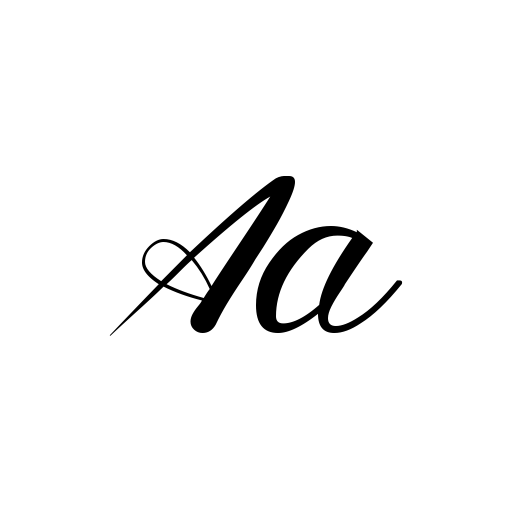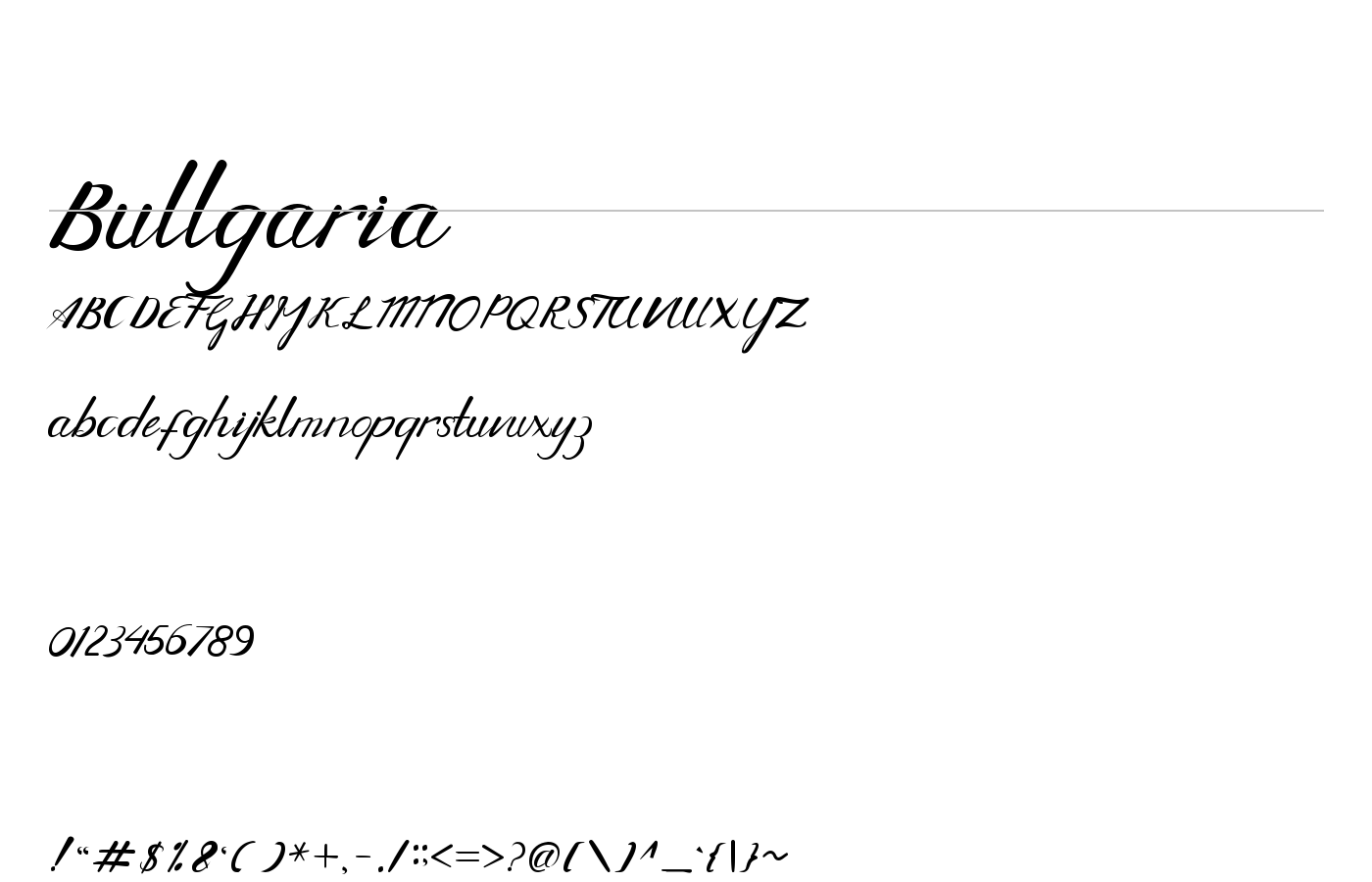
Bullgaria is an elegant script font characterized by its slender, flowing letterforms and graceful, calligraphic style. Its delicate strokes and slight slant give it a refined, classic feel, making it perfect for sophisticated branding, wedding invitations, and editorial design where a touch of luxury or romance is desired. The font’s smooth connections and fine details lend a timeless, stylish charm ideal for upscale and feminine projects.
Bullgaria Font